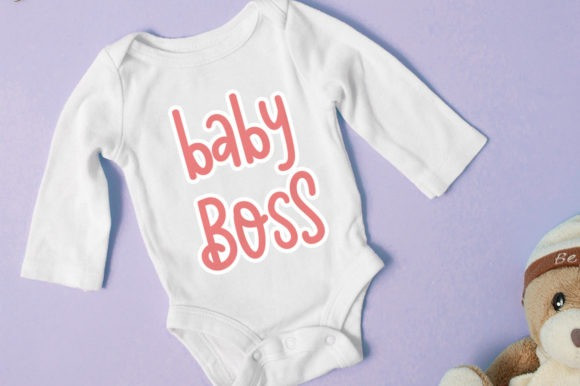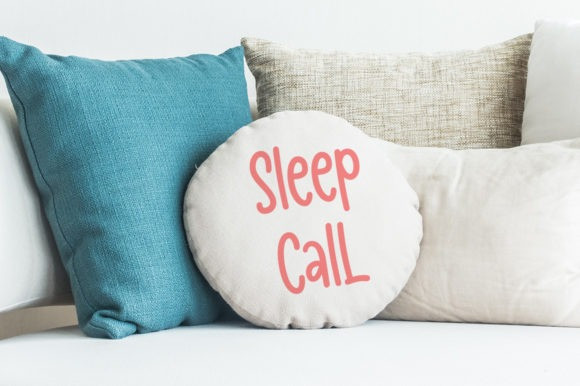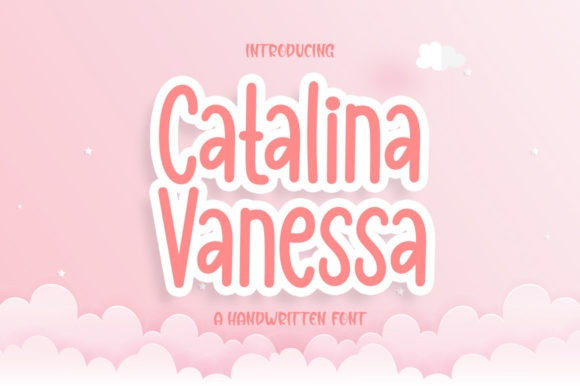
Catalina Vanessa Font
Catalina Vanessa Font is a cool and modern handwritten font. Add it to your most creative ideas and notice how it makes them come alive! Its natural and unique style makes it incredibly fitting to a large pool of designs. This font is PUA encoded which means you can access all of the amazing glyphs and ligatures with ease!